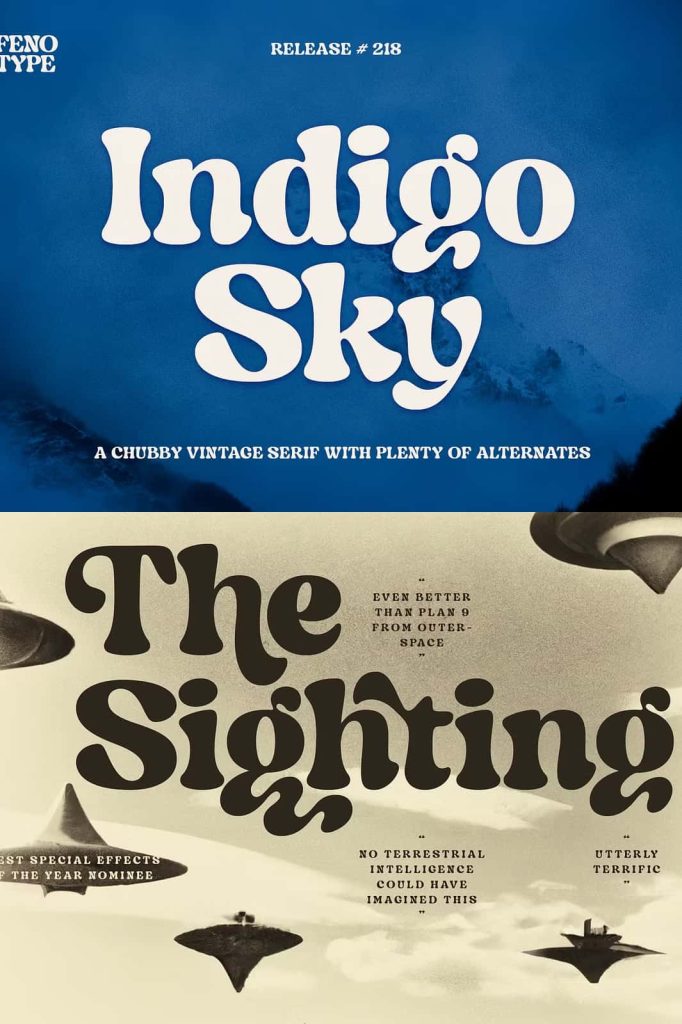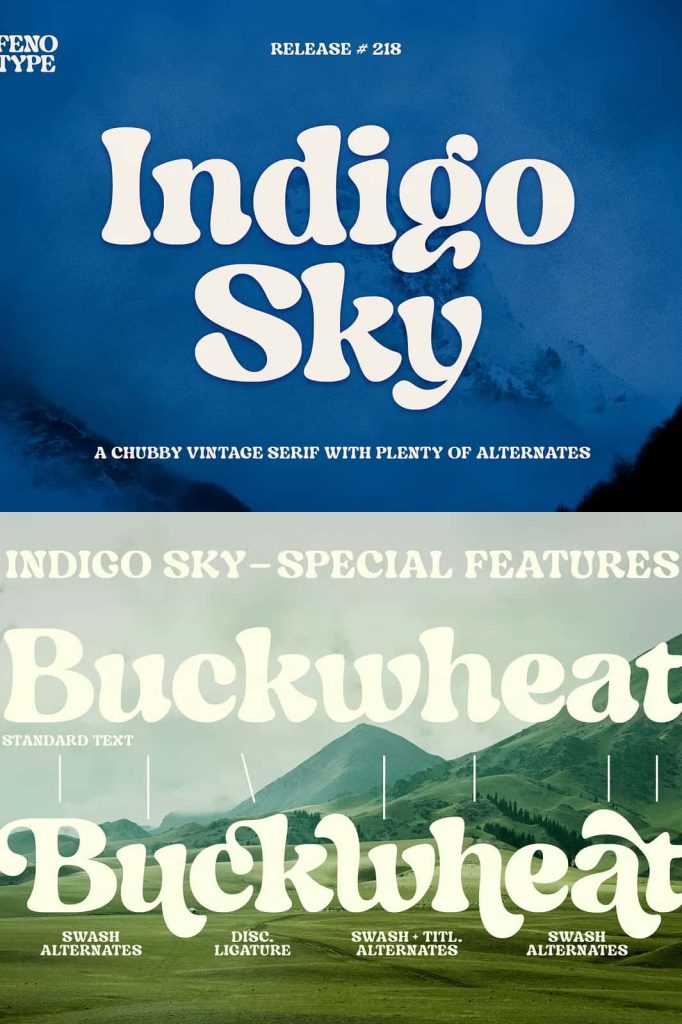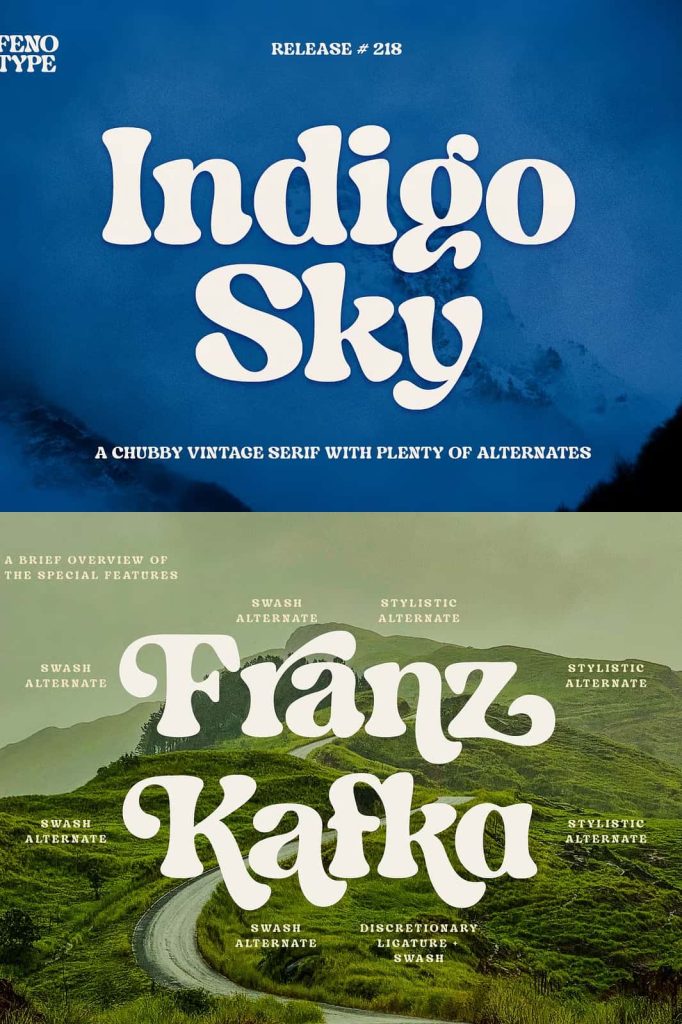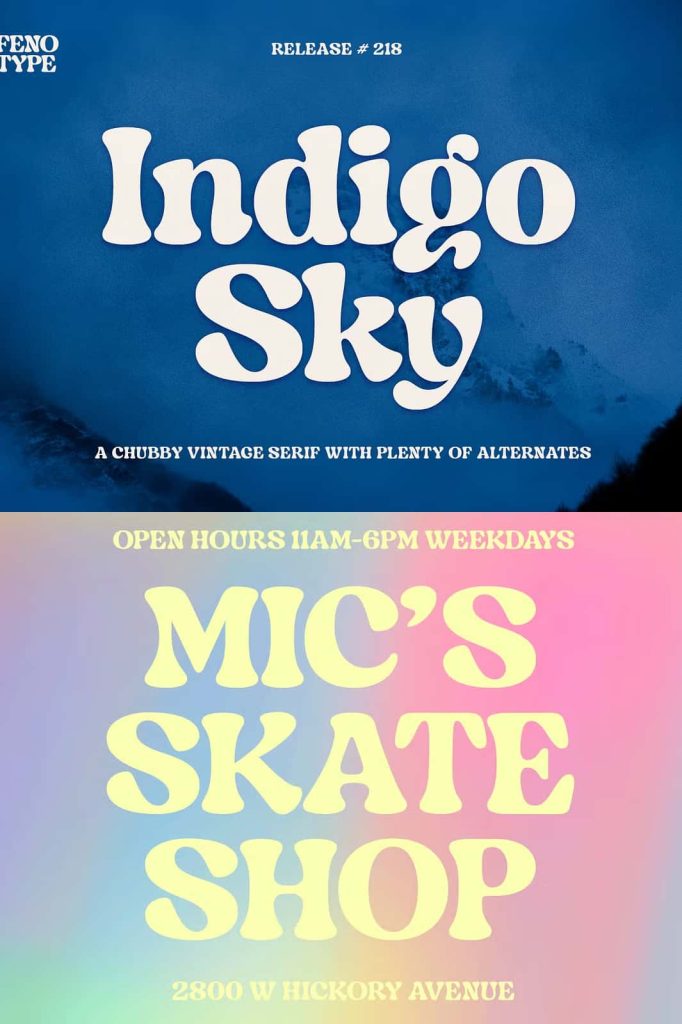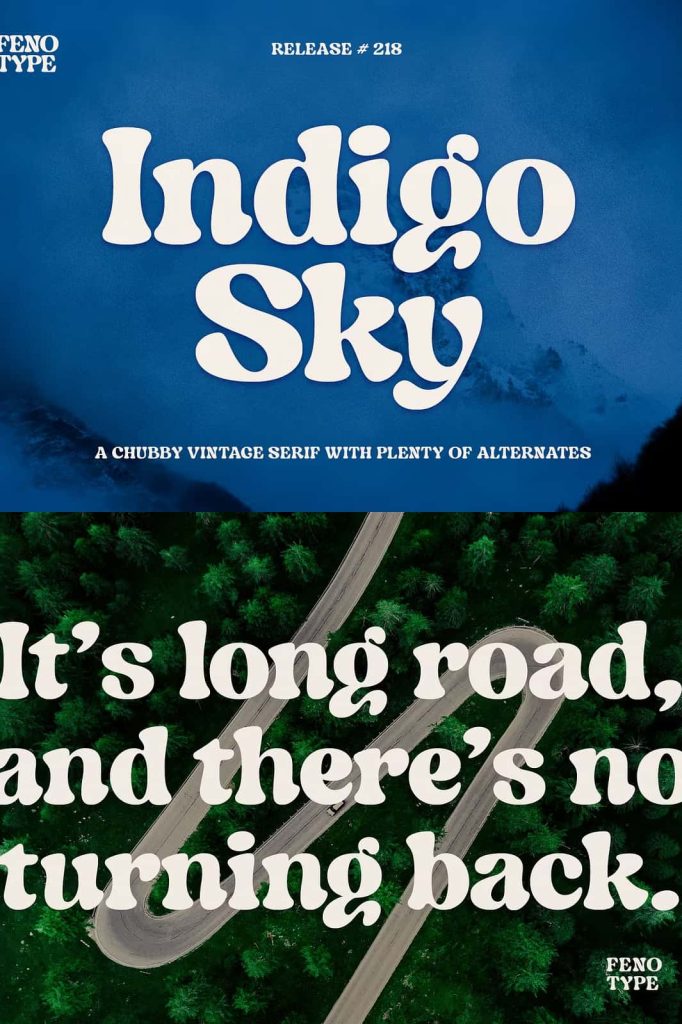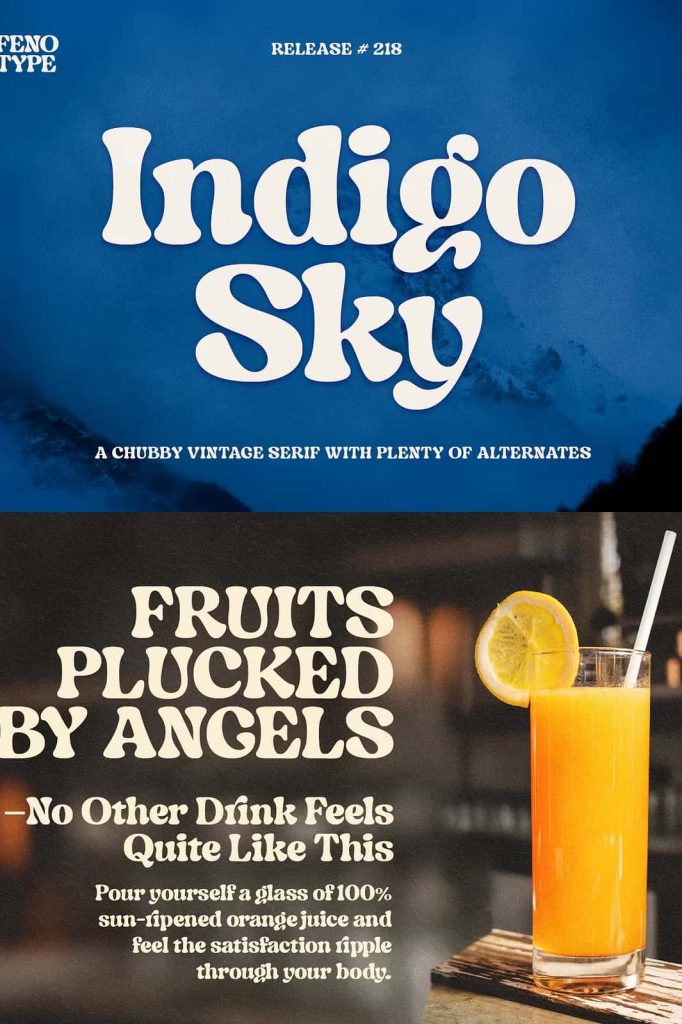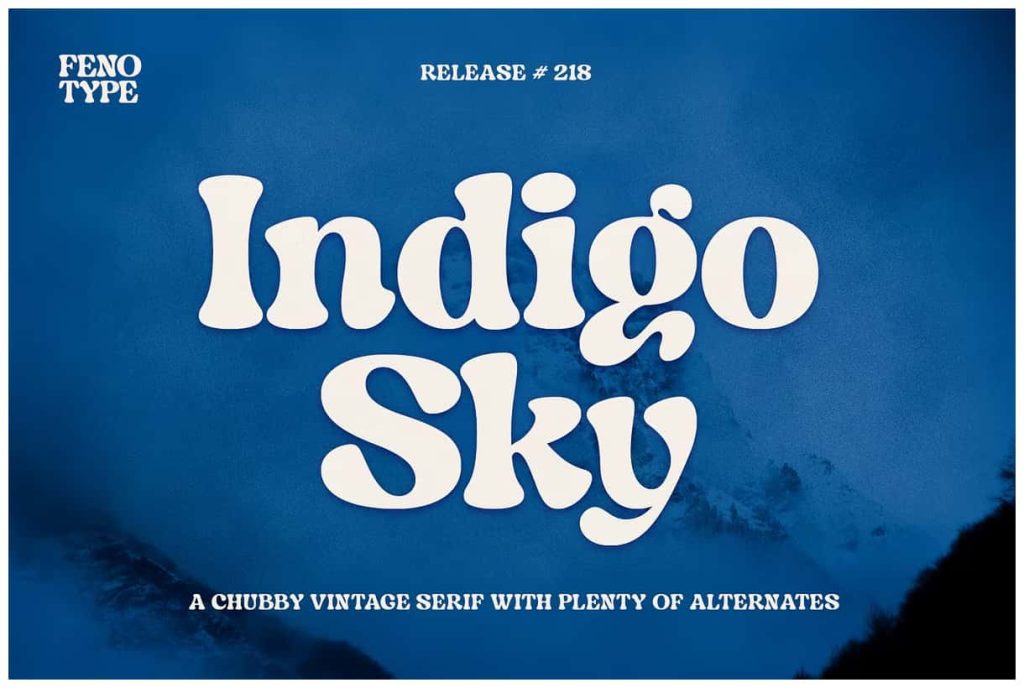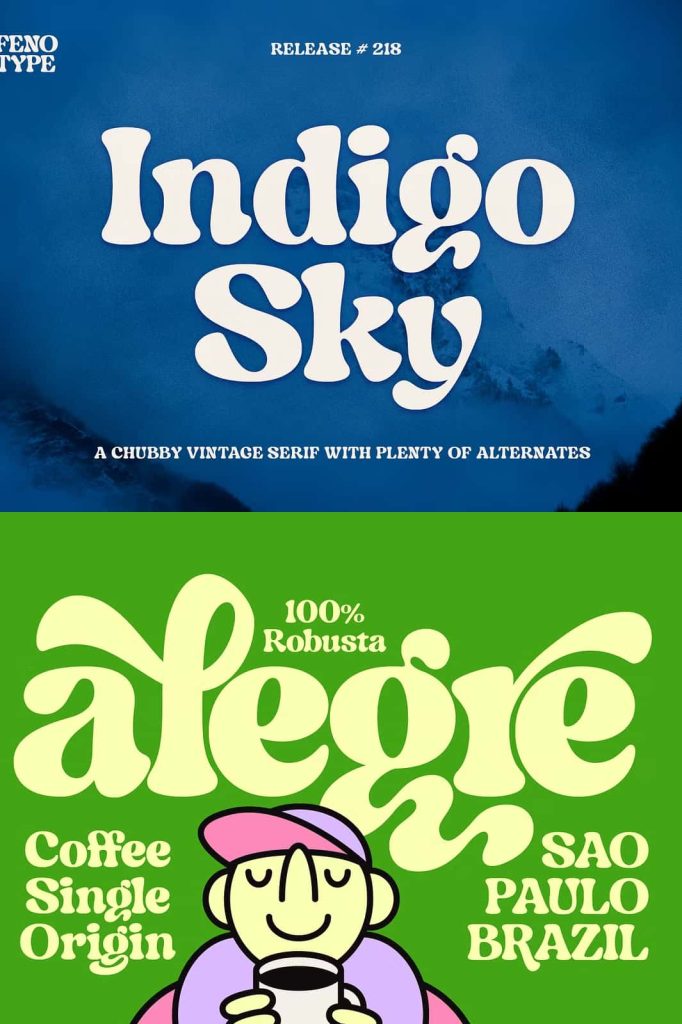
Indigo Sky Font: A Bold Rounded Serif with Nostalgic and Psychedelic Character
The Indigo Sky Font introduces a bold, plush, and expressive rounded serif that draws inspiration from nostalgic design eras while infusing a subtle touch of psychedelia. Designed to command attention, Indigo Sky transforms any headline into a powerful visual statement. Its wide characters, generous proportions, and large x-height ensure maximum impact whether you use it on posters, product packaging, editorial layouts, online graphics, or print materials. This typeface bridges retro charm with modern versatility, offering designers a creative tool that feels both familiar and refreshingly new.
A Typeface Built to Make Headlines Stand Out
One of the strongest features of Indigo Sky is its ability to create striking headlines that immediately dominate the space. The bold structure and rounded serif details give each character a friendly yet authoritative presence. Unlike traditional serif fonts that emphasize elegance or formality, Indigo Sky embraces a more playful and confident personality. This makes it ideal for attention-grabbing titles on posters, banners, book covers, magazines, advertisements, and digital campaigns.
Large X-Height for Maximum Readability
The font’s large x-height enhances legibility, especially at larger sizes. This proportion allows Indigo Sky to maintain clarity even when placed against busy backgrounds or visually intense layouts. Designers often rely on it for displays that need to communicate strong messages quickly. Its balanced curves and thick strokes ensure that every letter appears crisp, bold, and inviting, making the typeface effective in both print and digital applications.
Rounded Serifs with a Nostalgic Touch
Indigo Sky carries a sense of nostalgia inspired by mid-century and retro typography. The rounded edges soften the bold structure, evoking feelings of warmth, friendliness, and familiarity. These nostalgic traits make the typeface suitable for projects that aim to evoke a vintage atmosphere or a retro-futuristic aesthetic. Whether you design branding for lifestyle products, posters for events, editorial spreads for magazines, or packaging for creative goods, Indigo Sky adds a charming throwback feel without sacrificing modern readability.
A Subtle Hint of Psychedelia
While the font embraces nostalgia, it also integrates a subtle hint of psychedelia in its overall form. The wide characters, smooth transitions, and plush curves create a dynamic rhythm that feels lively and expressive. This psychedelic influence brings a sense of energy and movement, helping designers produce layouts that feel vibrant and contemporary. Indigo Sky becomes especially effective in artistic posters, music-related graphics, festival branding, and expressive visual themes.
Versatile Across Display and Product Applications
The Indigo Sky Font works exceptionally well for various display purposes. Its bold, round forms make product packaging stand out on shelves, while its distinctive silhouette enhances logo designs and brand marks. From physical merchandise to digital creatives, Indigo Sky contributes strong visual identity and aesthetic coherence. Designers appreciate the font’s ability to adapt to diverse contexts, whether crafting an eye-catching banner, creating an impactful website header, or designing a statement-making promotional piece.
Perfect for Digital and Print Design
Because Indigo Sky maintains clarity at different resolutions and sizes, it performs well across digital interfaces and print materials. Its bold presence translates effectively from screens to paper, making it a reliable choice for designers who work across multiple media formats. Whether designing social media graphics, product labels, magazine covers, postcards, posters, or advertisements, Indigo Sky ensures your typography resonates with style and authority.
The Indigo Sky Font stands as a bold and plush rounded serif that blends nostalgia, modern confidence, and subtle psychedelic influence. With its large x-height, wide characters, and expressive curves, it produces striking headlines and visually compelling displays. From posters to product packaging, from online designs to printed materials, Indigo Sky brings a unique mix of warmth, personality, and impact to every creative project. For designers seeking a typeface that commands attention while delivering retro charm, Indigo Sky offers an exceptional typographic solution.